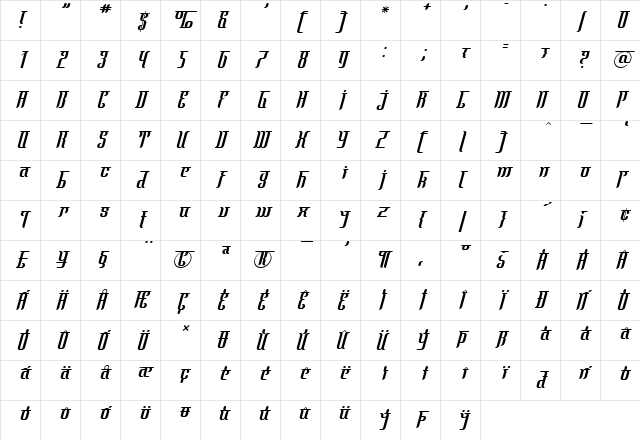
Complete Mata Hari Exotique glyph index. Displaying only characters natively supported by Mata Hari Exotique font.
Mata Hari is a composed and adaptable typeface that performs quietly and consistently across a wide range of design contexts.